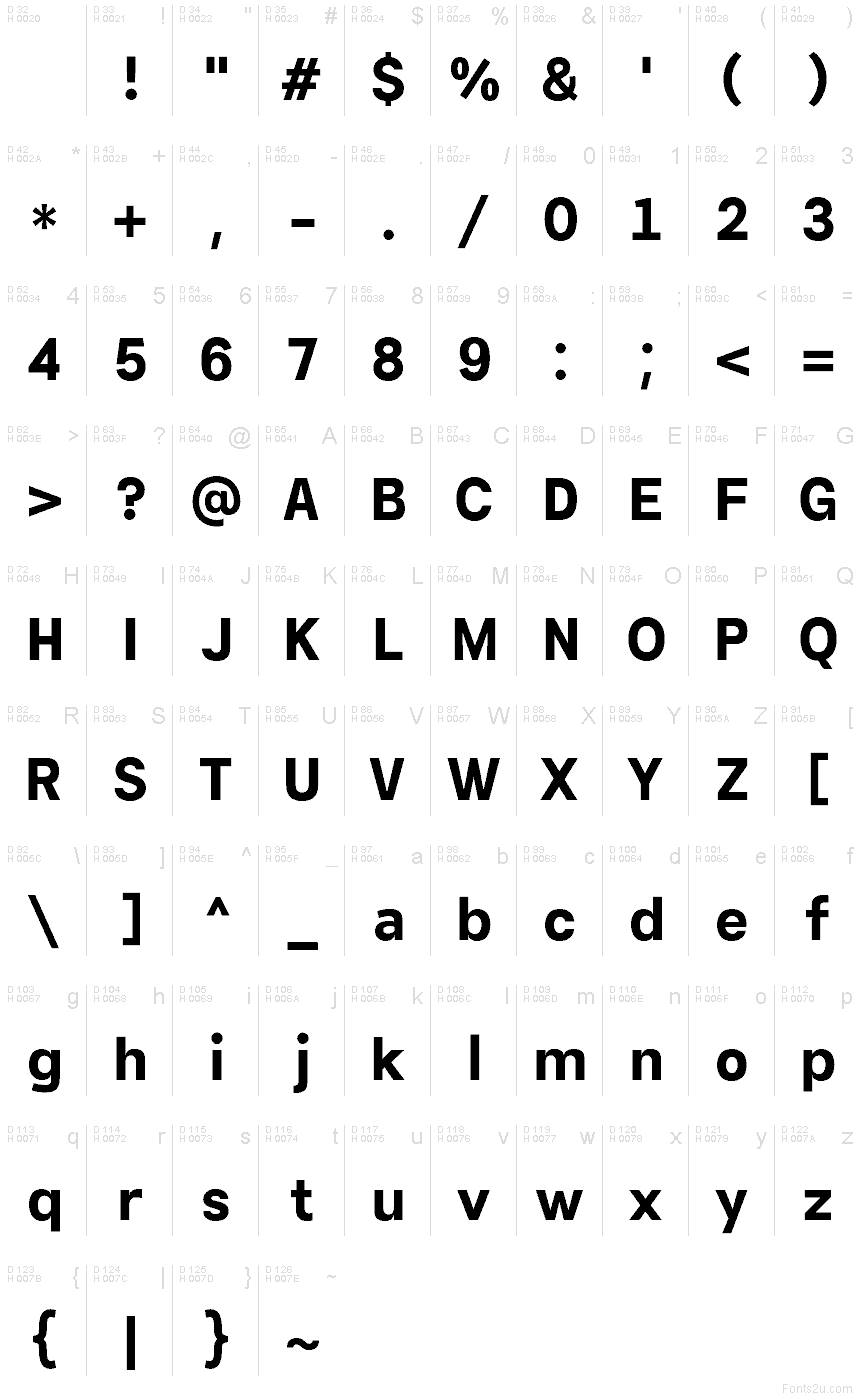
Mucitan Sans Bold
Mucitan Sans Bold font by Fitrah Type is a modern, professional, and geometric sans-serif font with a touch of approachability. The clean design of the free font makes it highly versatile both for print or digital use. Each letter carries consistency to create fluid visual flow that maximizes expression of your project.
The font is suitable for websites, mobile applications, branding projects, personal cards, books/chapter covers, blogs and blogging banners. Its approaches made it perfect for startup ideas and introductions. Build solid slides with social media posts; logos are also an area of extended application.